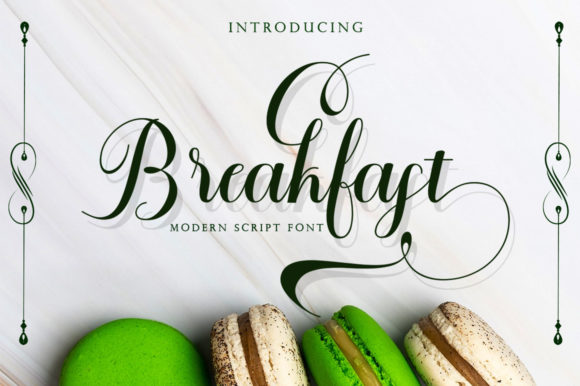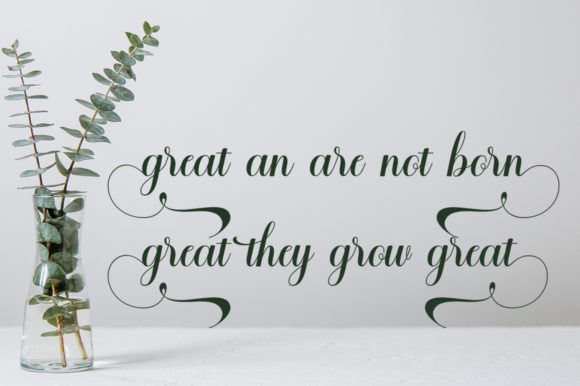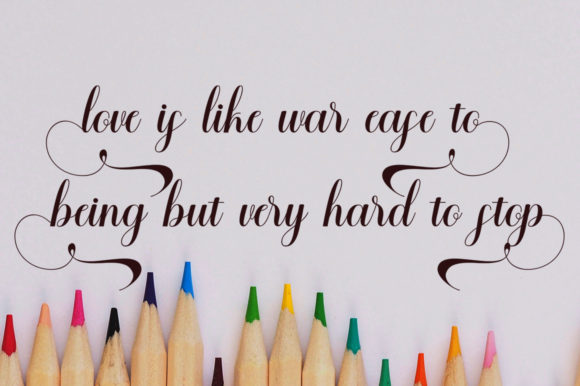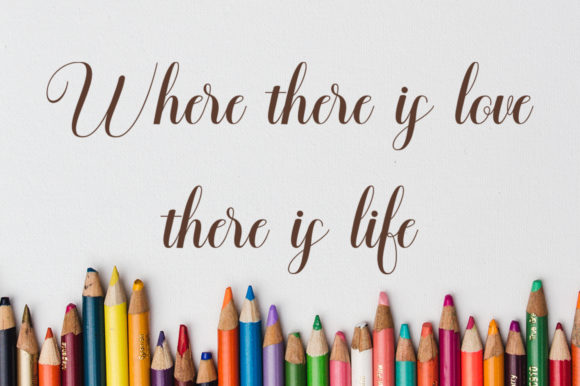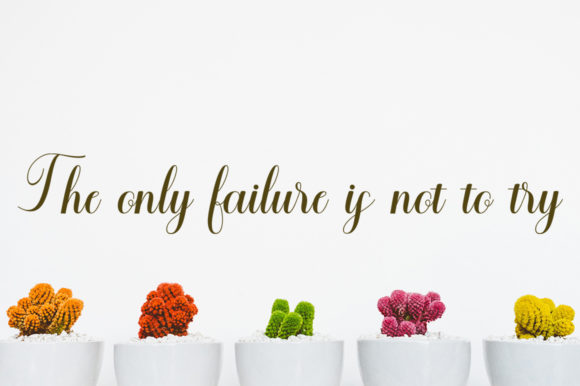
About Breakfast Font
Breakfast is an elegant and flowing script font. It maintains its classy calligraphic influences while feeling contemporary and fresh. Fall in love with this font and bring your projects to the highest levels!